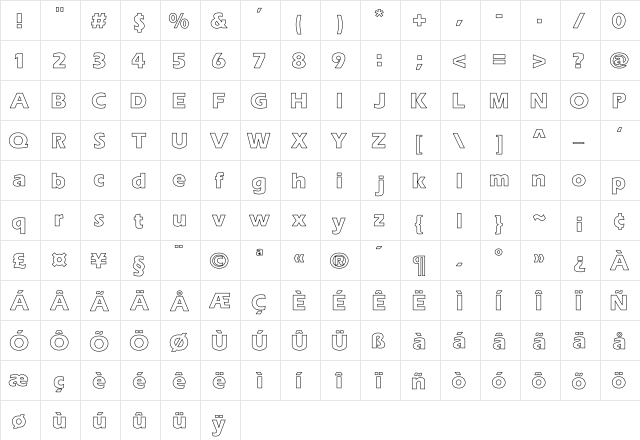
Eras-Bold Holllow Regular Font Preview
Eras-Bold Holllow Regular
Eras-Bold Holllow Regular Font Details
Design Context for Eras-Bold Holllow Typeface
Eras-Bold Holllow takes a measured approach to typography — its balanced proportions and neutral character make it a reliable workhorse for both digital and print work. The heavy weight commands attention and anchors typographic hierarchies.